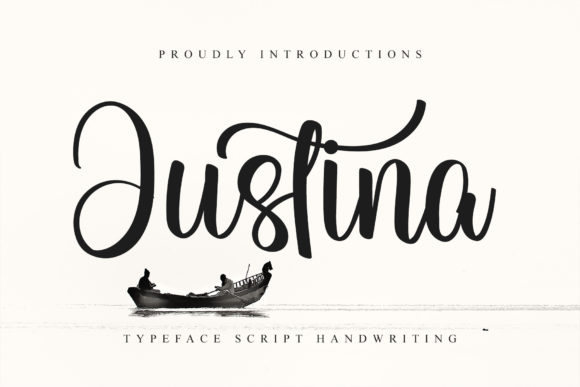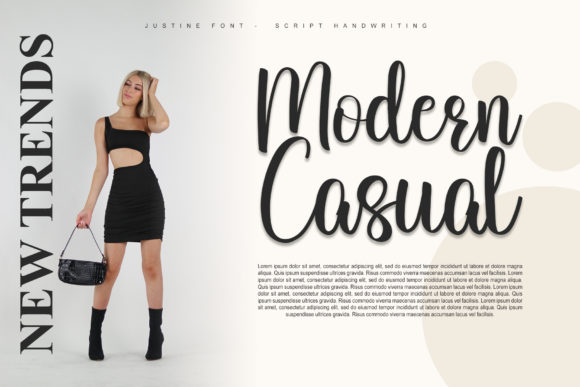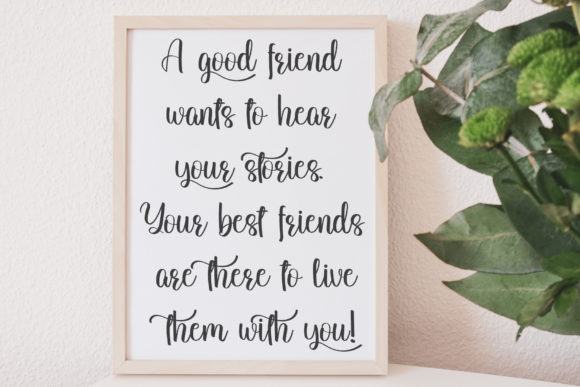
About Justina Font
Justina is a beautiful and refined script font. It has a classy, elegant and modern look that can be used for logos, branding, invitations, stationery, wedding designs, social media posts, and much more!